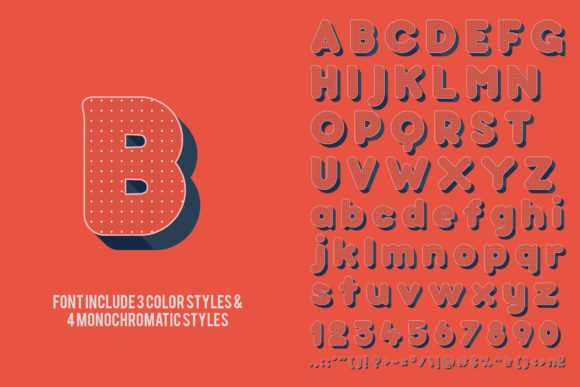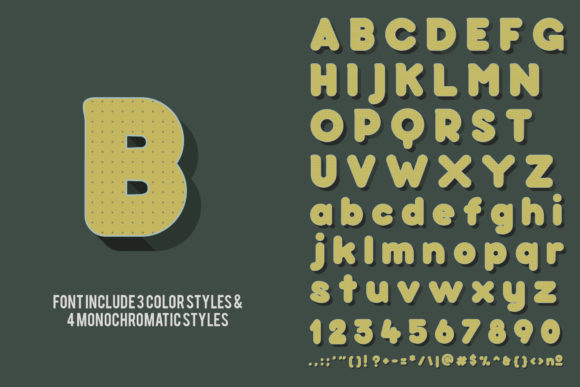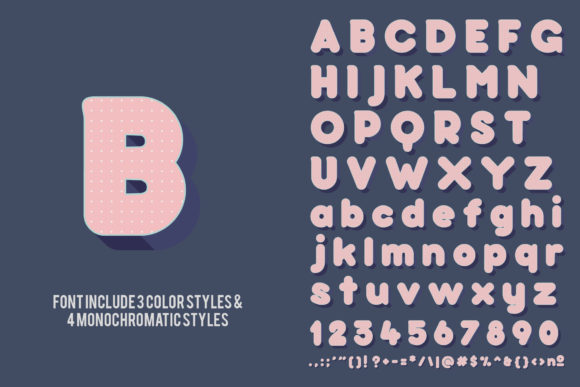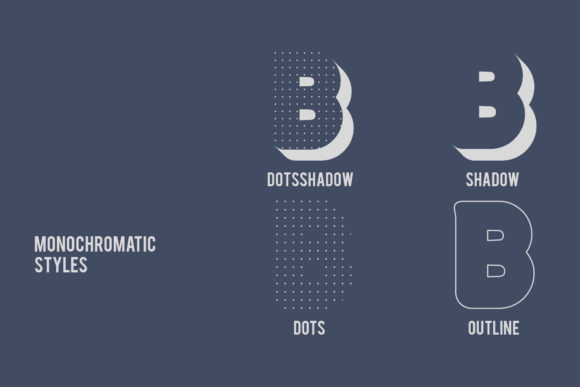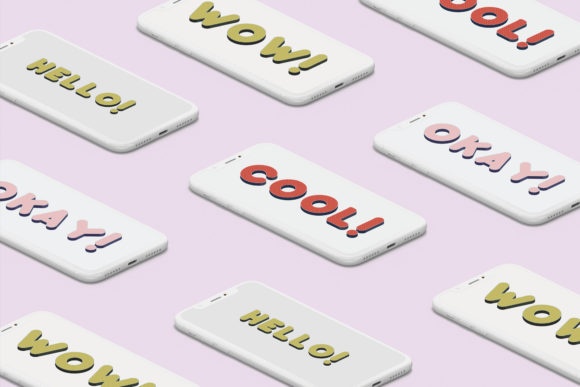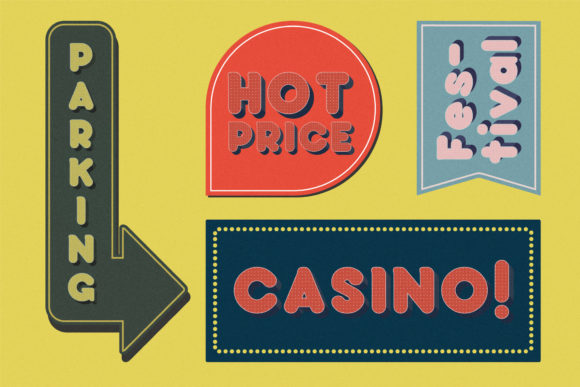
Introducing Baku Font: The Ultimate Cool, Bold, and Thick Lettered Color Font
Are you a designer or crafter looking for a font that can elevate your creations to the next level? Look no further than the Baku Font! This stunning color font is a game-changer for anyone looking to add a touch of boldness and thickness to their designs. In this article, we’ll dive into the features and benefits of the Baku Font, and explore how it can become a valuable asset to your font library.
What is Baku Font?
Baku is a cool, bold, and thick lettered color font that is sure to turn heads. Its unique and eye-catching design makes it perfect for a wide range of projects, from creative crafts to digital designs. Whether you’re working on a logo, a poster, or a social media graphic, the Baku Font is sure to make a statement.
Key Features of Baku Font
- Color Font (Opentype-SVG): The Baku Font is a color font, which means it can display a wide range of colors and gradients, giving your designs a rich and vibrant look.
Benefits of Using Baku Font
So why should you choose the Baku Font for your next project? Here are just a few benefits of using this amazing font:
- Enhance Your Creations: The Baku Font has the potential to enhance any creation, making it a valuable asset to your font library.
- Save Time: With its bold and thick lettered design, the Baku Font can help you create stunning designs in no time.
- Stand Out: The unique and eye-catching design of the Baku Font will help your designs stand out from the crowd.
Tips and Tricks for Getting the Most Out of Baku Font
Here are a few tips and tricks for getting the most out of the Baku Font:
- Experiment with Colors: The Baku Font is a color font, so don’t be afraid to experiment with different colors and gradients.
- Pair with Other Fonts: Try pairing the Baku Font with other fonts to create a unique and eye-catching design.
- Use in Different Contexts: The Baku Font can be used in a wide range of contexts, from digital designs to creative crafts.
In conclusion, the Baku Font is a cool, bold, and thick lettered color font that is sure to elevate your designs to the next level. With its unique and eye-catching design, compatibility with popular design software, and ease of use, this font is a valuable asset to any font library. Whether you’re a designer or crafter, the Baku Font is a must-have for anyone looking to create stunning designs.